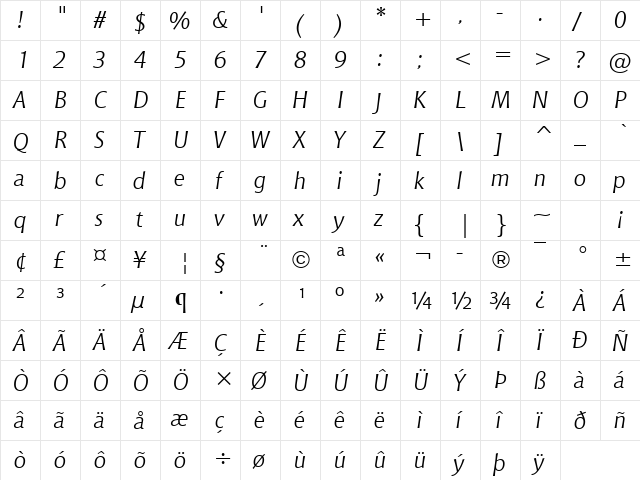
Chianti It Win95BT Italic
Design Context for Chianti It Win95BT Typeface
Chianti It Win95BT offers clean, dependable letterforms without strong stylistic allegiance, making it a practical choice for designers who need flexibility. The dynamic lean of this cut emphasises speed and emphasis in any layout.
Pro Tip: Try Chianti It Win95BT for annotation and caption copy alongside an upright companion — the contrast in angle creates a dynamic but ordered typographic system.